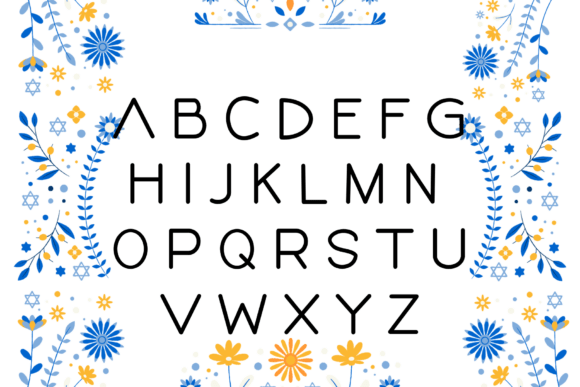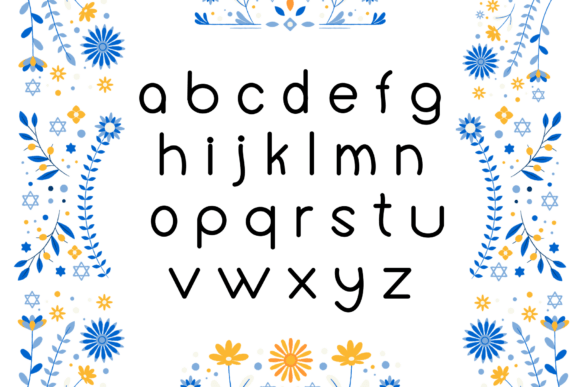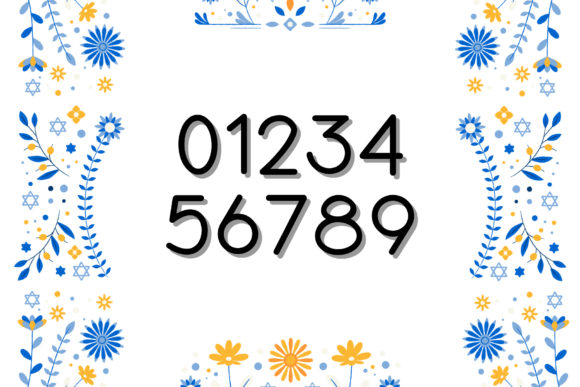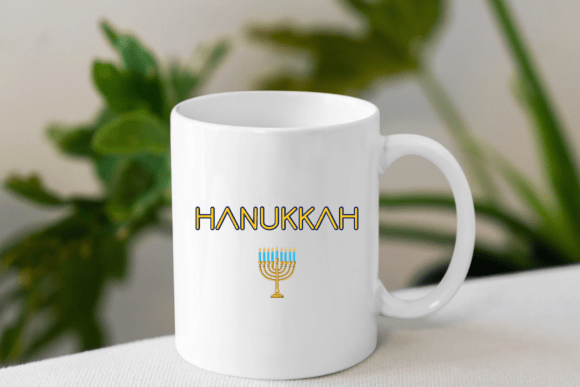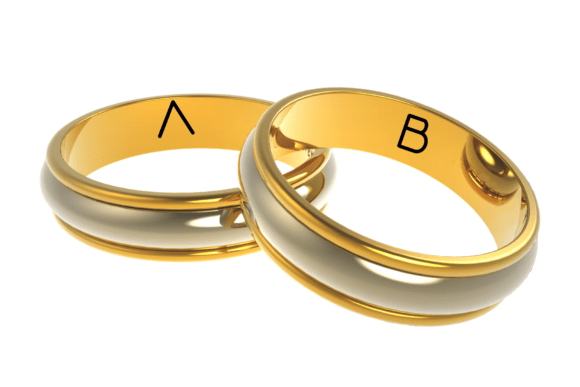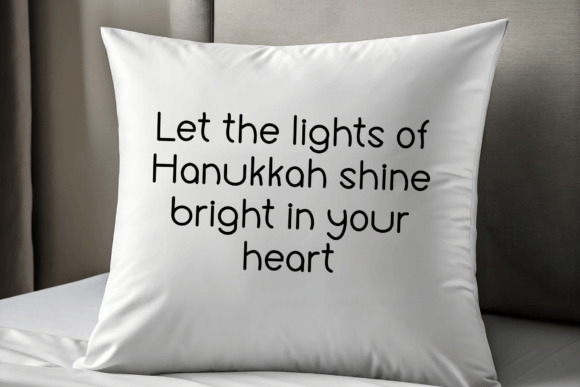
Introducing the Hanukkah Font: A Modern, Playful, and Versatile Typeface
The Hanukkah Font is a modern, rounded typeface that embodies a clean, monoline aesthetic with a playful yet minimalist approach. Its simplicity and adaptability make it an excellent choice for a wide range of design projects, from educational materials and kids’ books to holiday themes, branding, and digital designs. In this article, we’ll explore the features and benefits of the Hanukkah Font, and how it can elevate your designs, especially during the Hanukkah celebrations.
The Hanukkah Font boasts a unique blend of modernity and playfulness, making it perfect for designs that require a fresh and youthful approach. Its rounded letterforms and monoline style give it a clean and elegant look, while its simplicity ensures that it remains highly legible, even at smaller font sizes.
This font’s versatility is one of its standout features. It can be used in a variety of design contexts, from formal and educational to informal and playful. Whether you’re creating materials for a children’s book, designing a logo for a brand, or crafting holiday-themed graphics, the Hanukkah Font is an excellent choice.
Perfect for Educational Projects
For educational projects, the Hanukkah Font is an excellent choice due to its clarity and legibility. Its simple and clean design makes it easy for young learners to read and understand, while its playful aesthetic helps to keep them engaged and interested. Whether you’re creating textbooks, worksheets, or educational posters, this font is sure to be a valuable asset.
Kids’ Books and Holiday Themes
The Hanukkah Font is also perfectly suited for kids’ books and holiday themes. Its playful and festive design makes it an excellent choice for stories, activity books, and other materials aimed at children. Additionally, its adaptability allows it to be easily customized to fit various holiday themes, including Hanukkah, Christmas, and other celebrations.
Branding and Digital Designs
In the world of branding and digital design, the Hanukkah Font offers a fresh and modern approach. Its simplicity and versatility make it an excellent choice for logos, social media graphics, and other digital materials. Whether you’re designing a website, creating social media content, or crafting marketing materials, this font is sure to help your brand stand out.
Hanukkah-Inspired Style
Shown here in a Hanukkah-inspired style, the font adapts beautifully to both everyday use and seasonal celebrations. The Hanukkah Font features a unique blend of traditional and modern elements, making it perfect for designs that require a touch of cultural heritage and festivity.
During Hanukkah, the font can be used to create stunning designs that reflect the holiday’s themes of light, joy, and celebration. From greeting cards and posters to social media graphics and website headers, the Hanukkah Font is an excellent choice for any design project related to this special holiday.
- Don’t be afraid to customize the font to fit your specific design needs, whether it’s adjusting the size, color, or style.
| Font Name | Hanukkah Font |
| Author | Chada Art |
The Hanukkah Font is a modern, playful, and versatile typeface that offers a wide range of design possibilities. Its simplicity, legibility, and adaptability make it an excellent choice for educational projects, kids’ books, holiday themes, branding, and digital designs. Whether you’re a designer, crafter, or simply someone looking for a fresh and modern font, the Hanukkah Font is sure to be a valuable asset in your design toolkit.